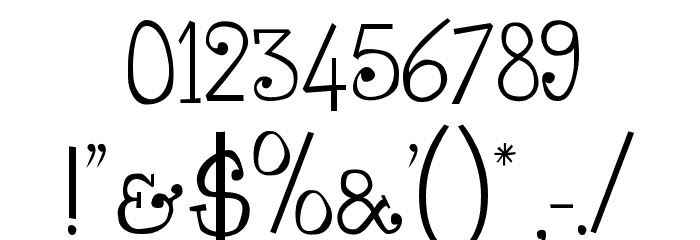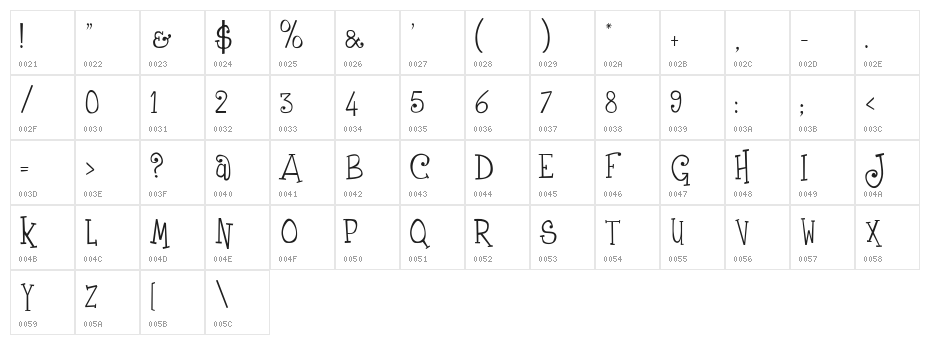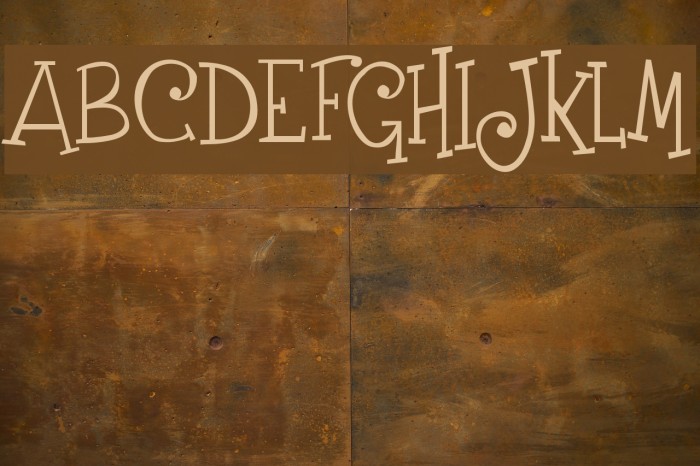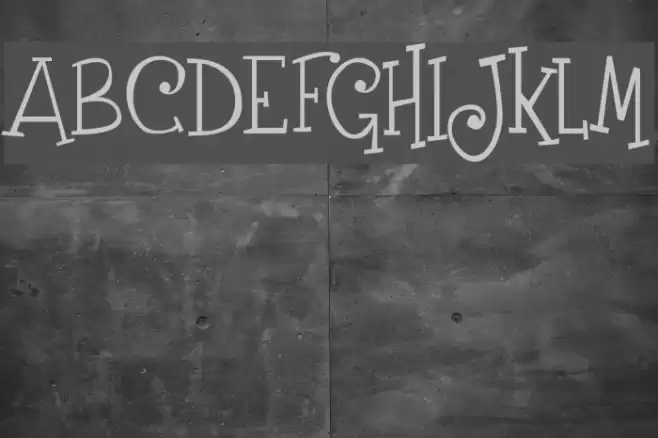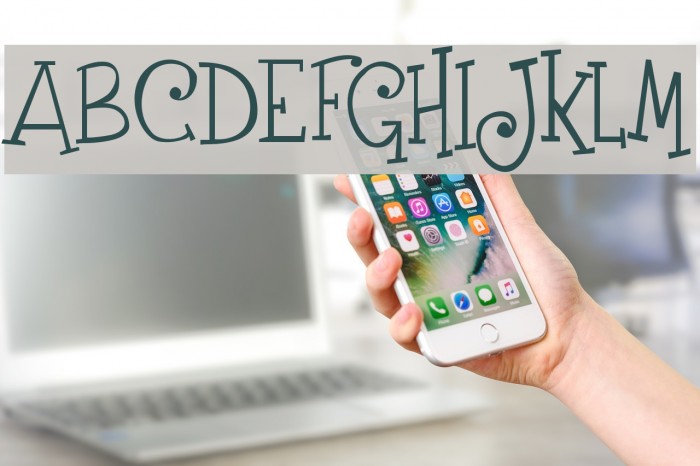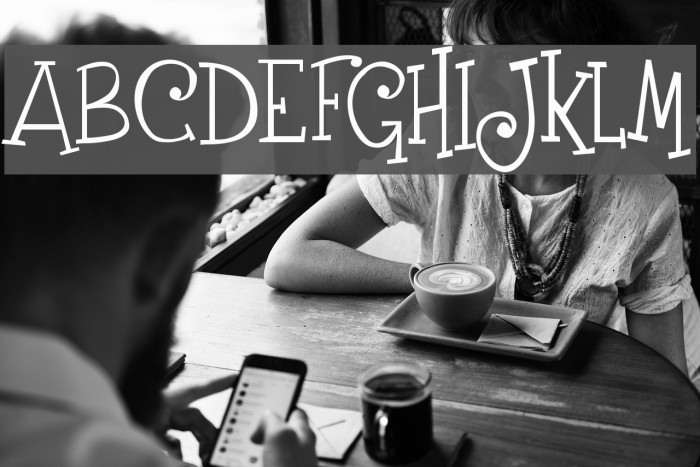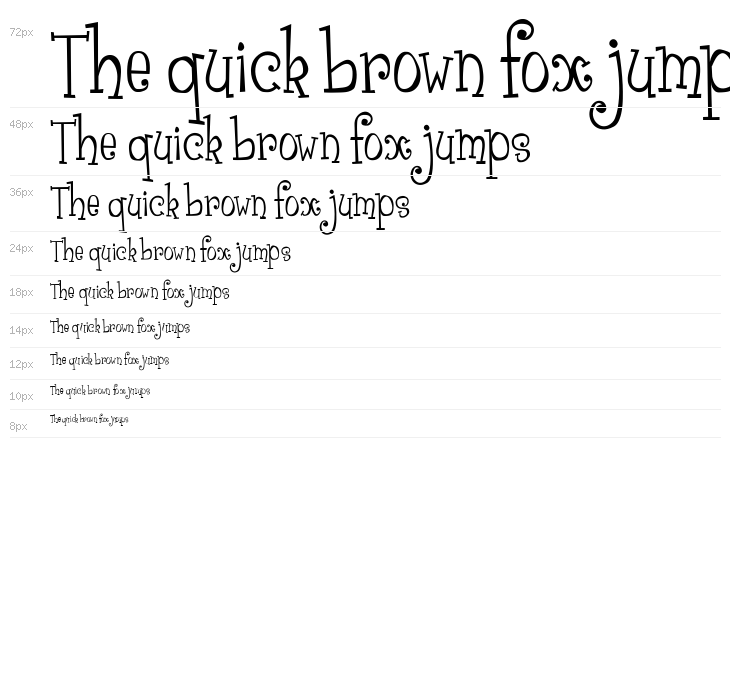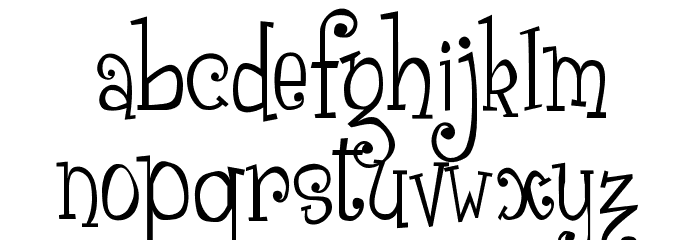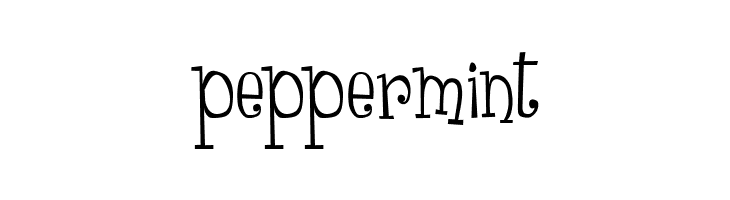
Grenouille Font
Grenouille Description
This font features a whimsical and playful design with a distinctively quirky style. The letters have a hand-drawn appearance, characterized by uneven strokes and varying line thicknesses that add a sense of movement and energy. The uppercase letters are tall and slightly narrow, with exaggerated curves and swirls, particularly noticeable in letters like 'J', 'K', and 'R'. The lowercase letters maintain the playful aesthetic, with unique forms such as the looped 'g' and the curly 'f'. Numbers and special characters follow the same lively style, making them stand out with their decorative flair. Overall, this font exudes a fun and informal vibe, perfect for creative and artistic projects.
| Proposed Projects | Ideal for children's books, greeting cards, playful branding, and creative posters. |